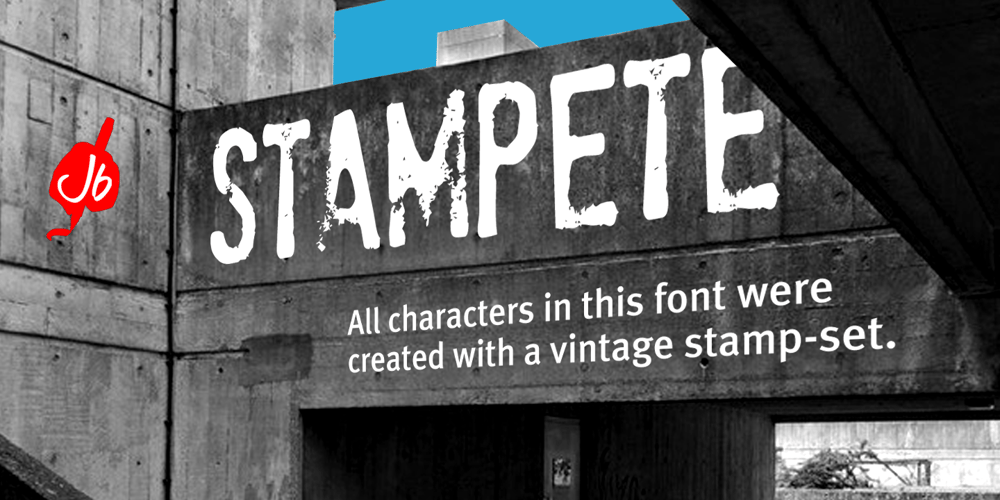
StamPete Font Family was designed by Jeroen “Joebob” van der Ham and published by JOEBOB graphics. StamPete contains 1 styles and family package options. A font made with a children’s stamp set using too little ink. Not a complete set of characters. %